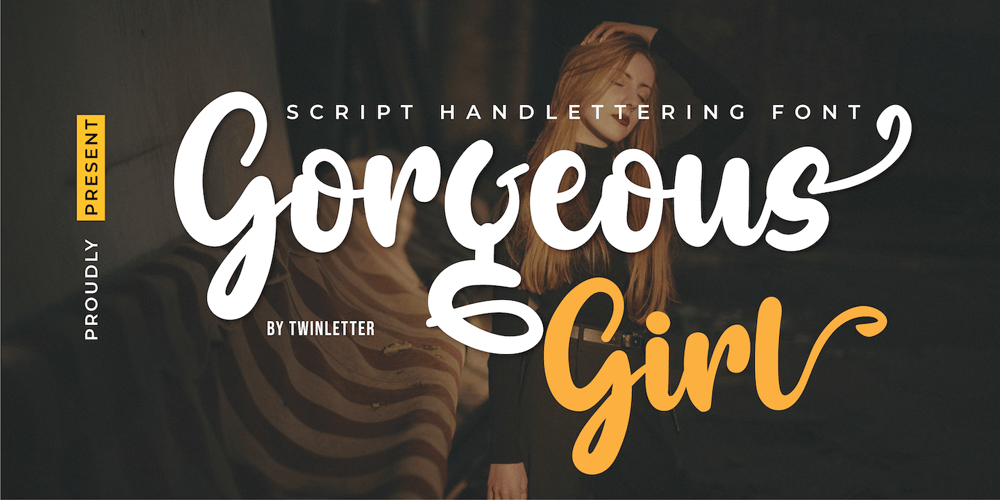
Gorgeous Girl Font Family was designed by Rozikan and published by Twinletter. Gorgeous Girl contains 1 styles and family package options. Gorgeous Girl is our newest script font created with sweet and sweet hand strokes, with subtle touches and dramatic curves making this font unique.This bold calligraphy font is designed with a relaxed but elegant background, while still paying attention to the beauty of each letter, there are alternate options for lowercase letters, so that it automatically beautifies the visual appearance in your design project. besides that, this font also offers harmoniously beautiful abstract typography for your various design projects.This font is also perfect for wedding invitations, quote designs, for social media business designs, advertisements, trademarks, food and beverage promotion banners, text, posters, signatures, and any design that requires handwriting.This font is equipped with uppercase, lowercase, numbers, punctuation marks, swhases and several variations on each character including multi-language.==================================================This font is best suited for open type friendly applications. How to get alternative glyphs from open type fonts: http://adobe.ly/1m1fn4YPUA Character Code – Fully accessible without additional design software.we hope you enjoy this font. Feel free to send whatever message you want to convey.